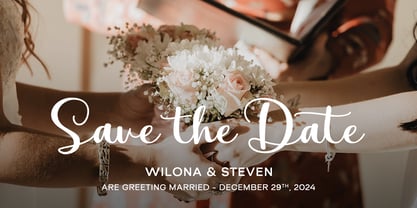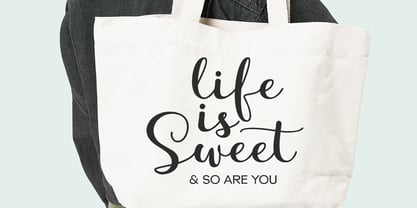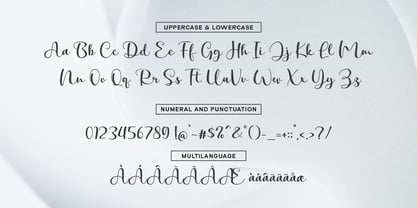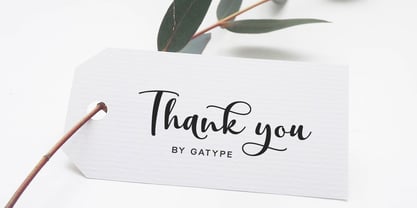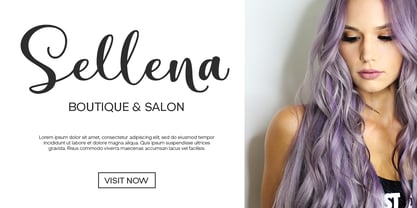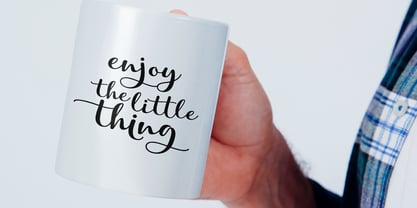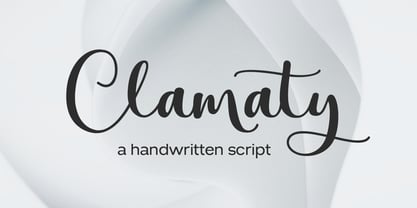
Clamaty Script
by Gatype
The Clamaty Script Font Family was designed by khaidir and published by Gatype. Clamaty Script contains 1 styles. More about this family
Clamaty script is font characterized by its elegant and feminine style. This font is typically used for designs that require a delicate and beautiful touch, such as wedding invitations, branding, or other creative projects. The letterforms flow smoothly with varying thickness, adding an artistic feel. Clamaty often includes ornaments or ligatures that enhance the overall appearance of the text.
Designers: khaidir
Foundry: Gatype